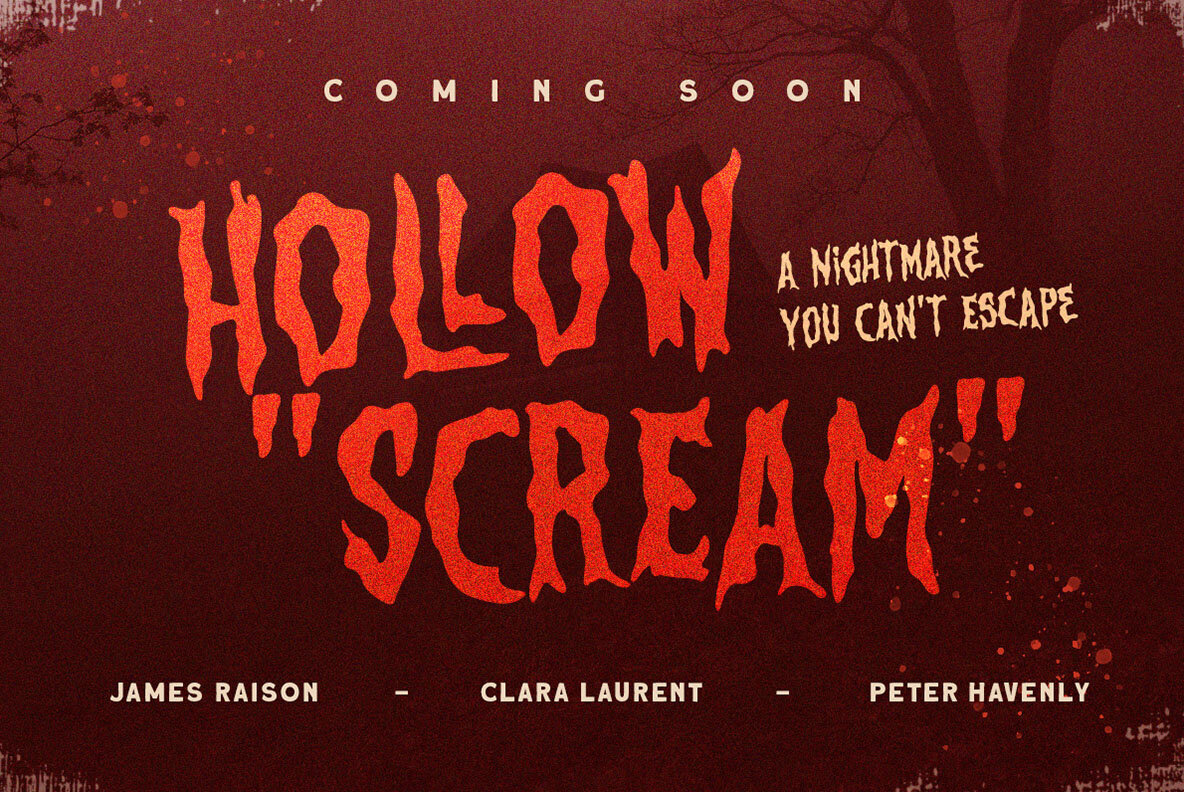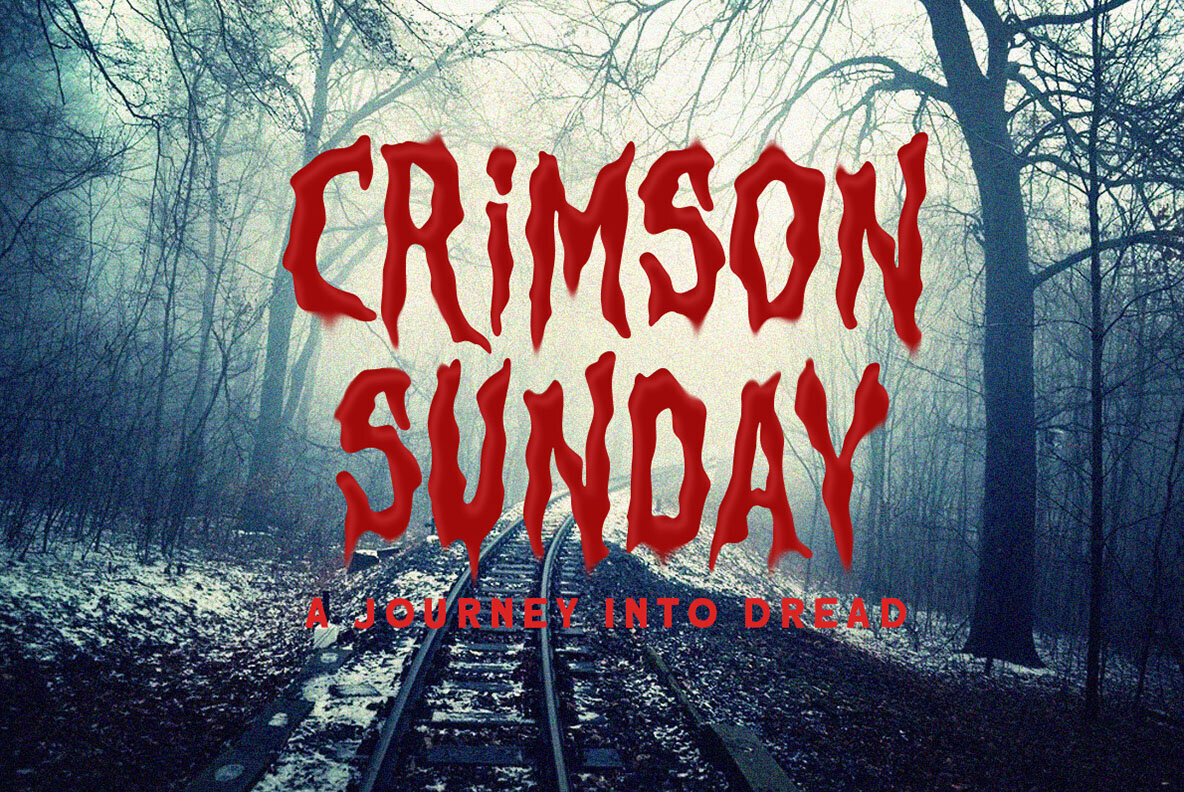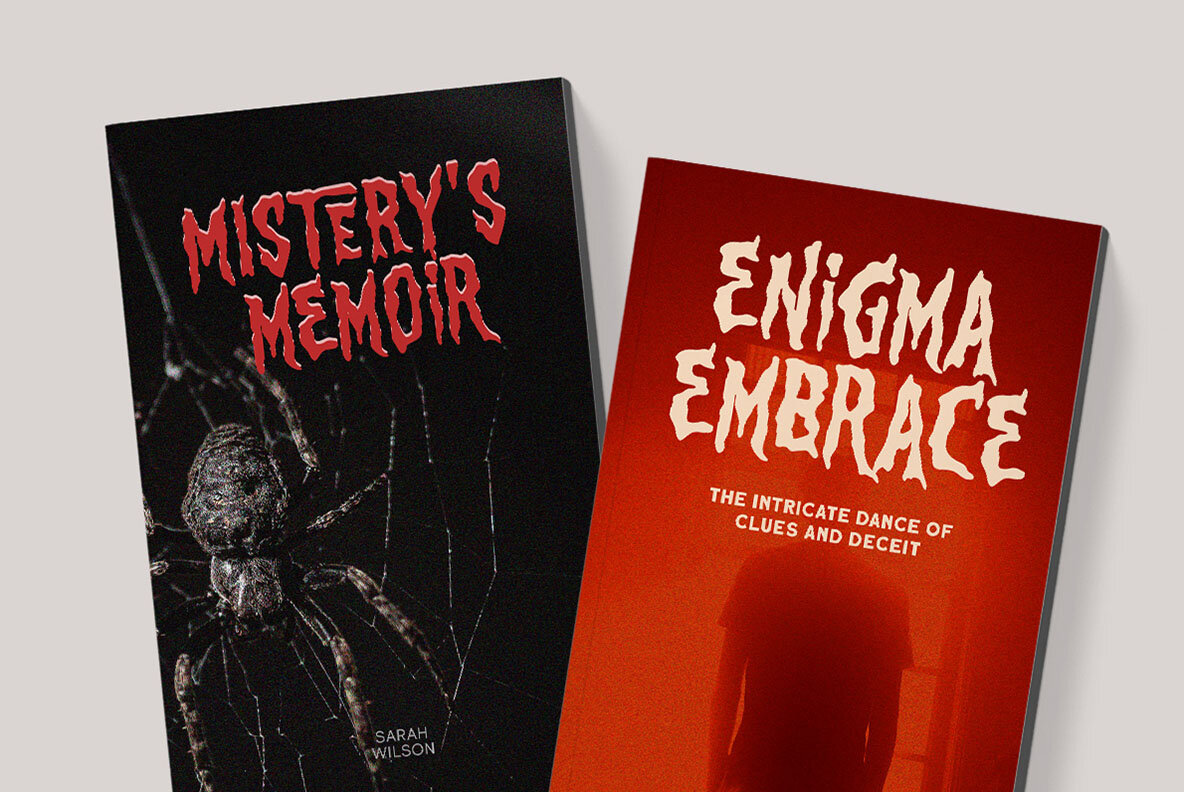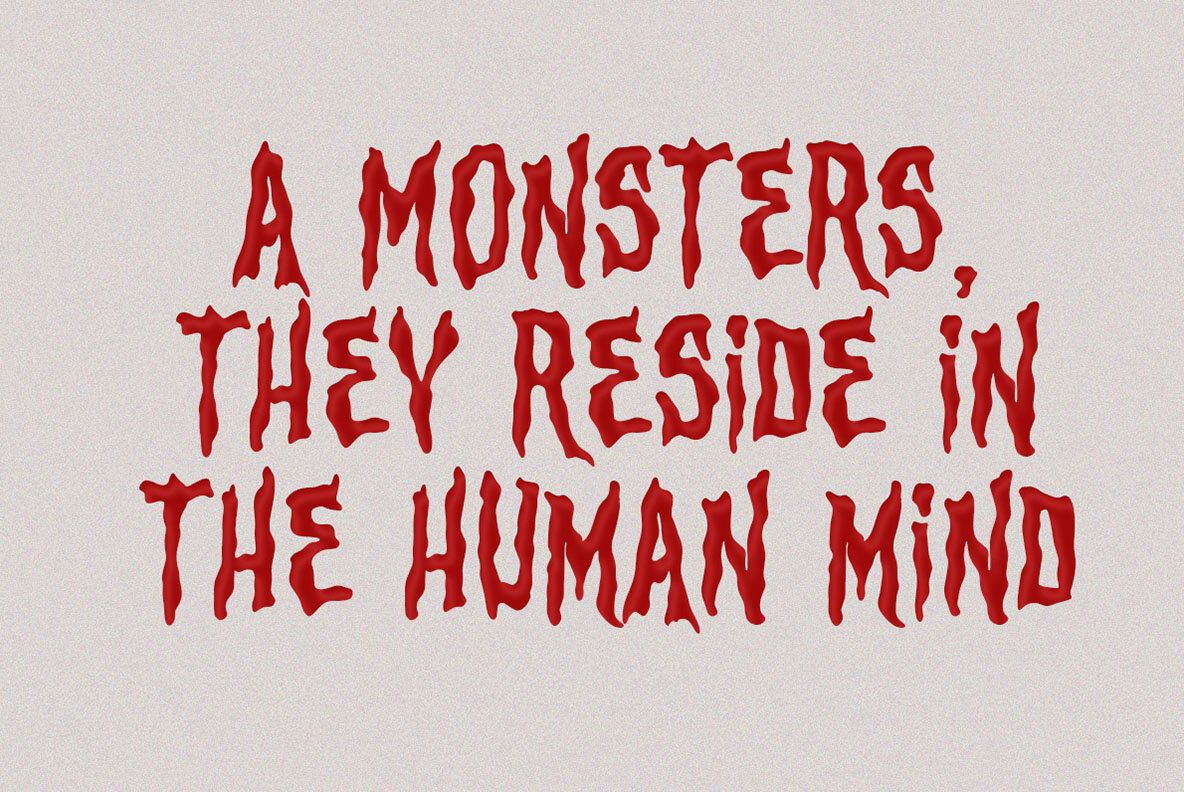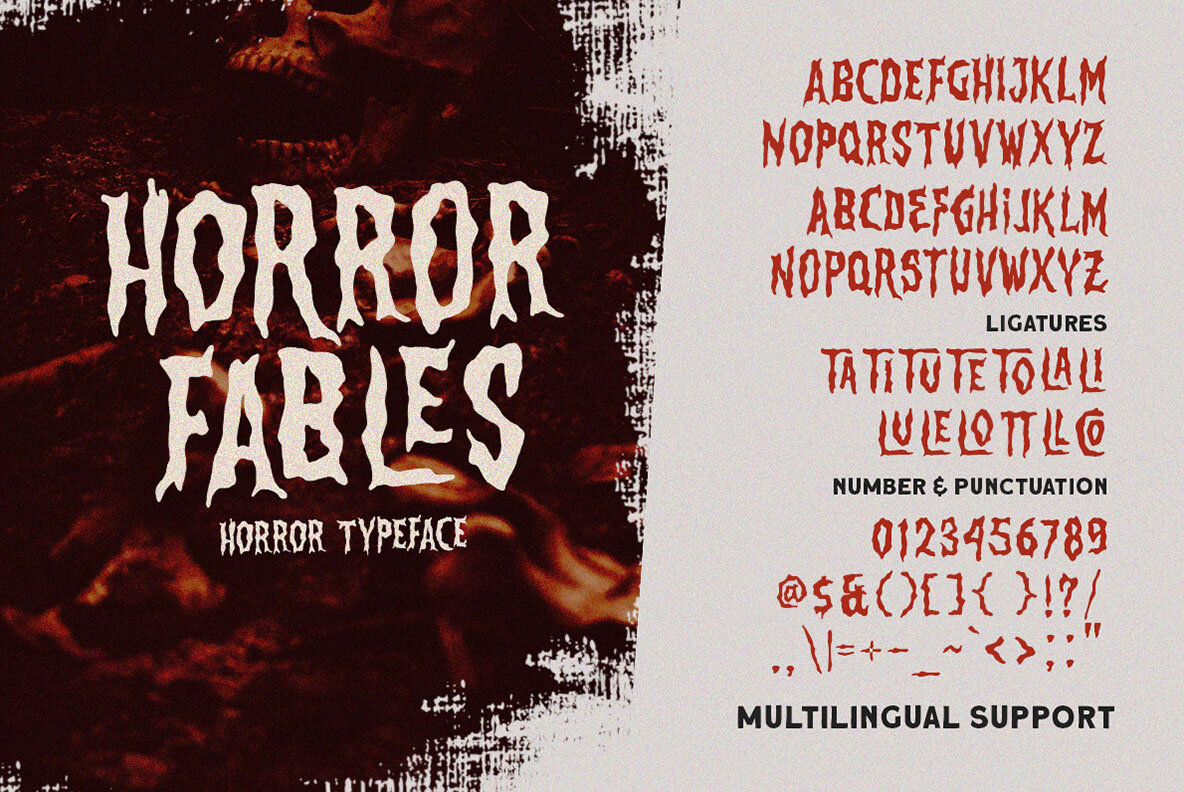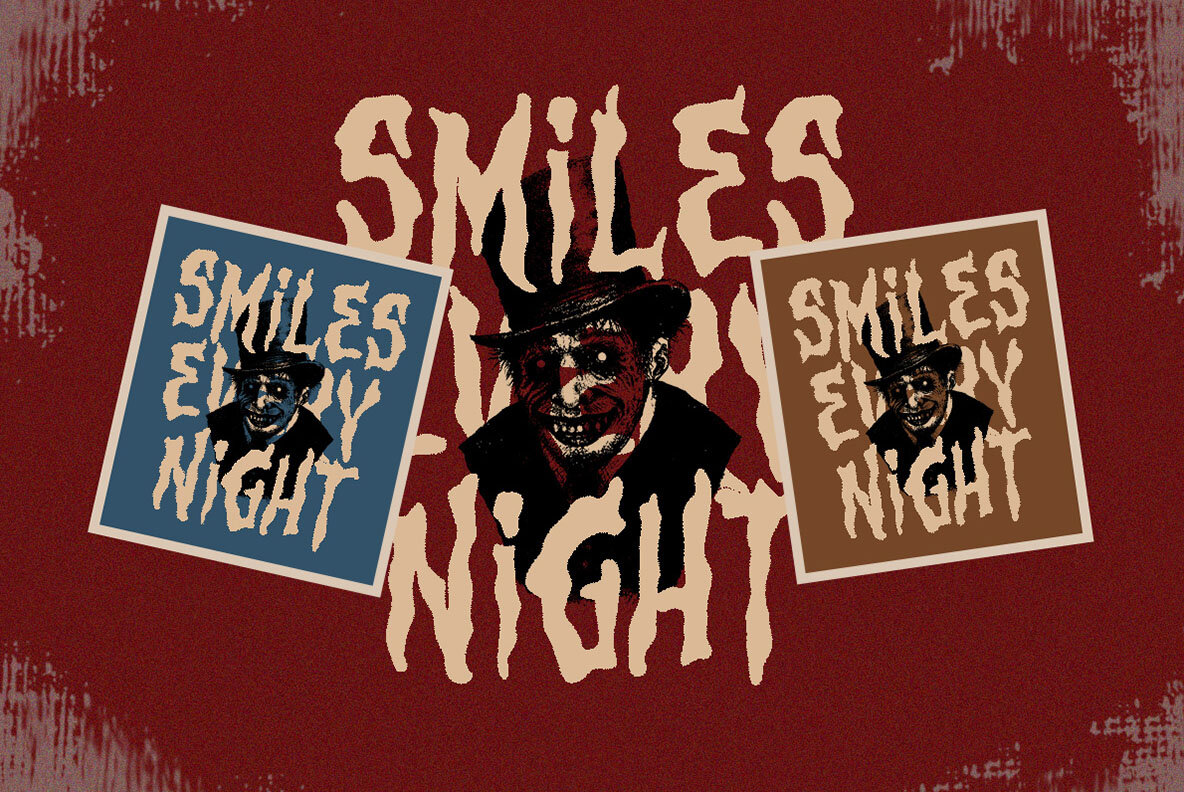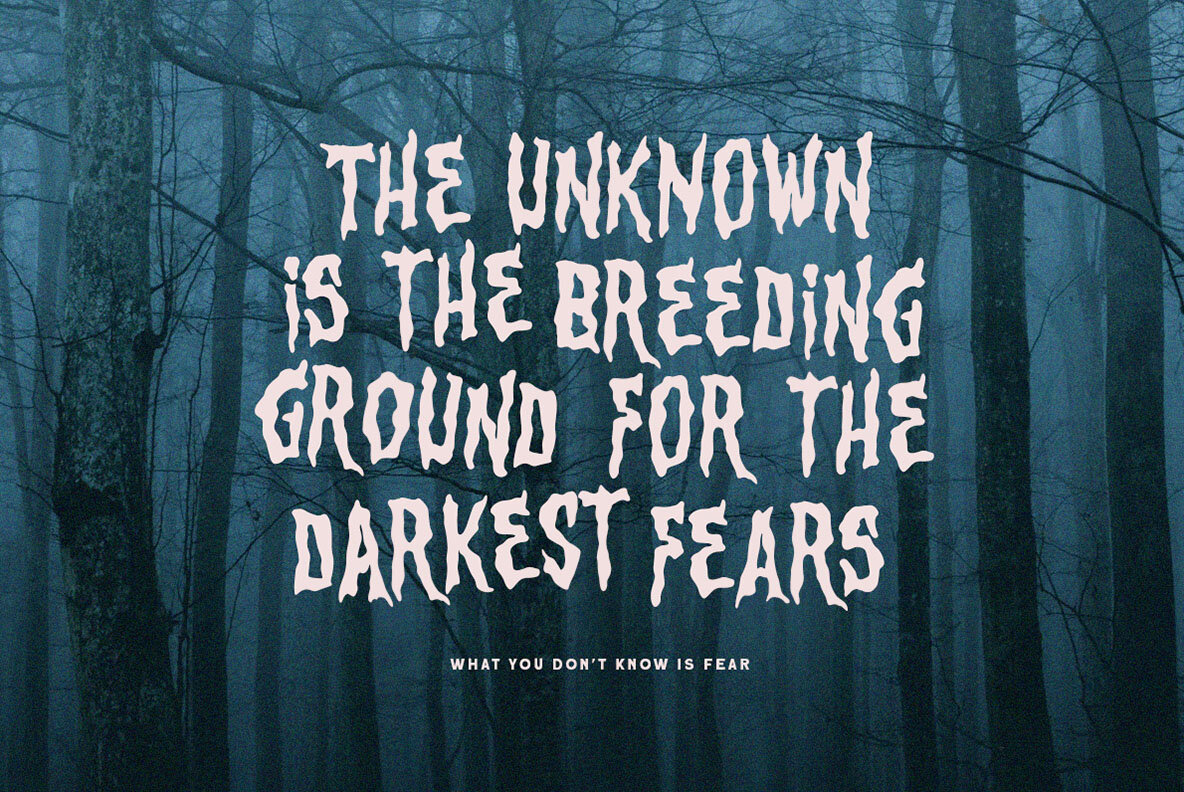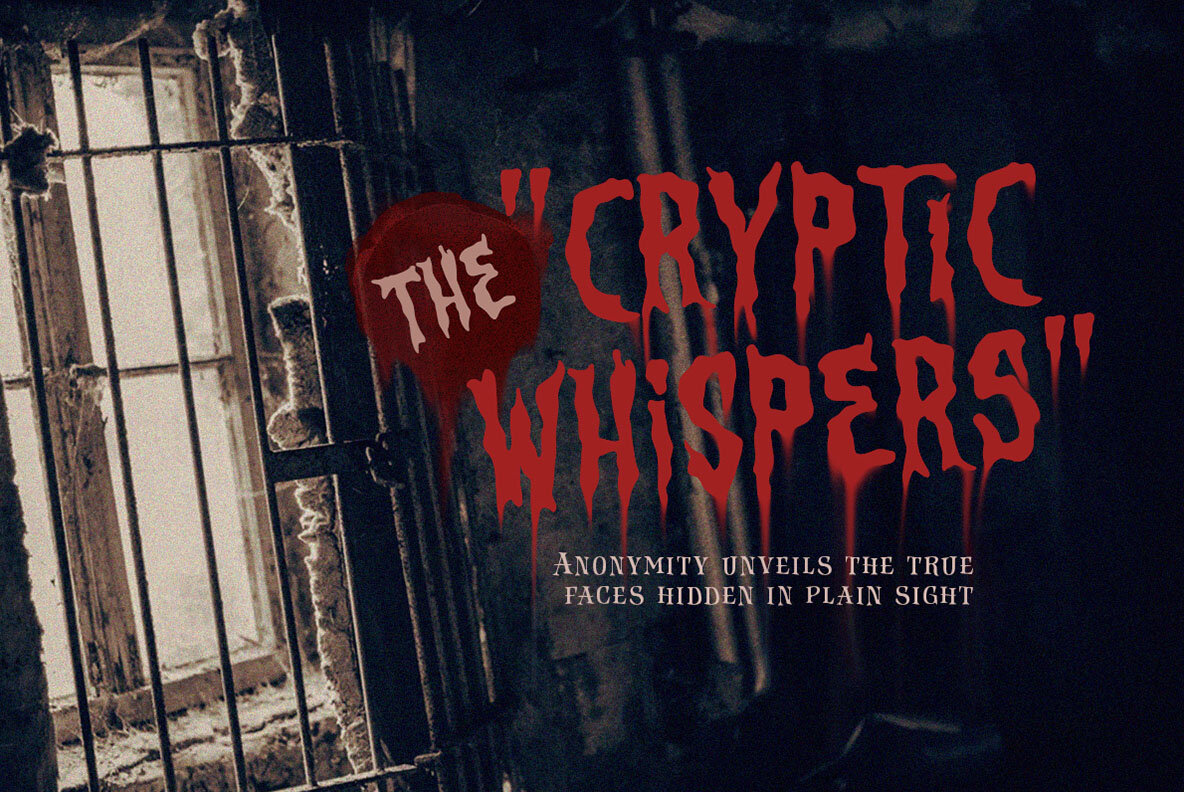
Horror Fables Font
Horror Fables Regular
Introducing Horror Fables Typeface – A display typeface that oozes dread and unease with every letterform. Designed to send shivers down your spine, it's the ultimate choice for all things horror, creepy, and spine-tingling. Whether you're conjuring a sinister book cover, a spooky app, or any macabre design, Horror Fable" will infuse your work with an eerie aura that keeps your audience spellbound. Features: